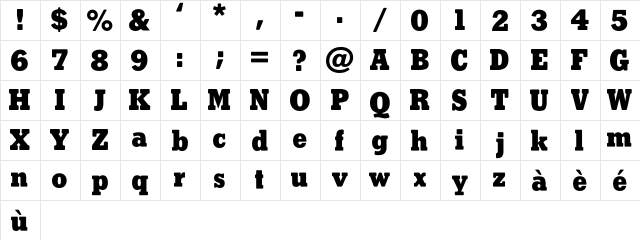
CARERRA Jones Regular
Design Context for CARERRA Jones Typeface
CARERRA Jones offers clean, dependable letterforms without strong stylistic allegiance, making it a practical choice for designers who need flexibility.